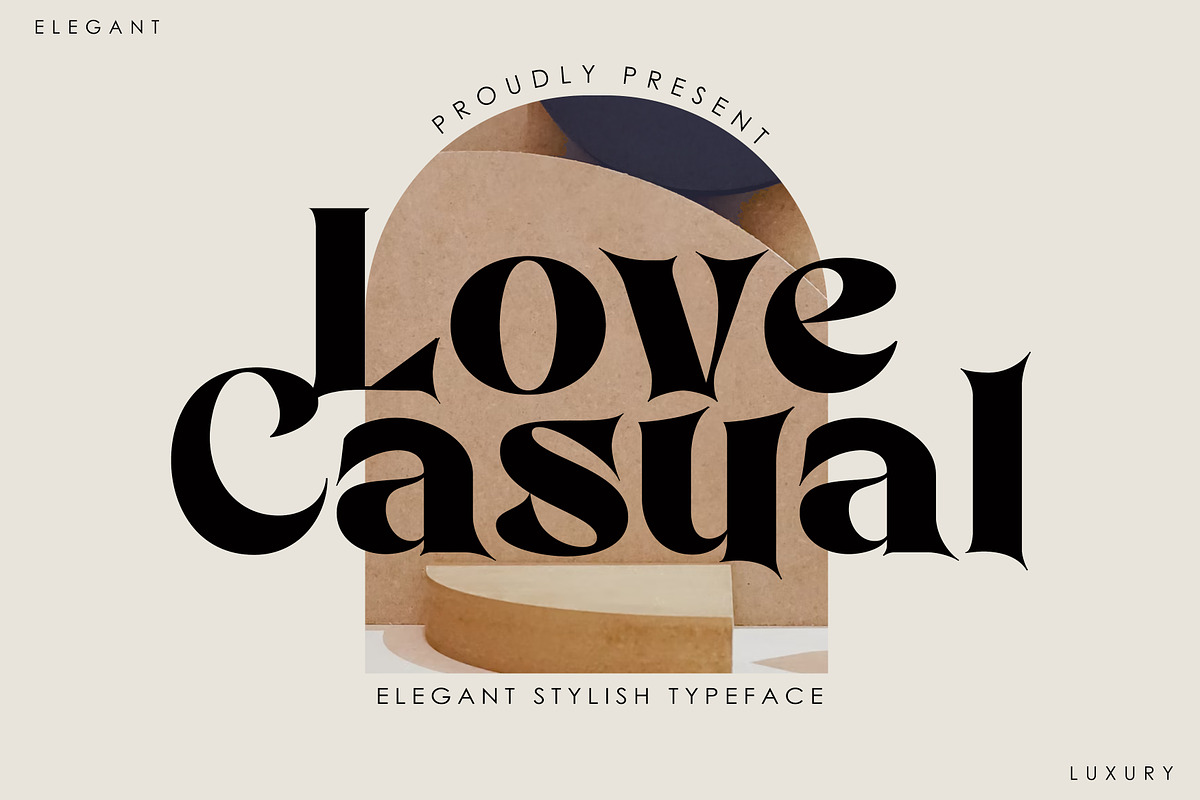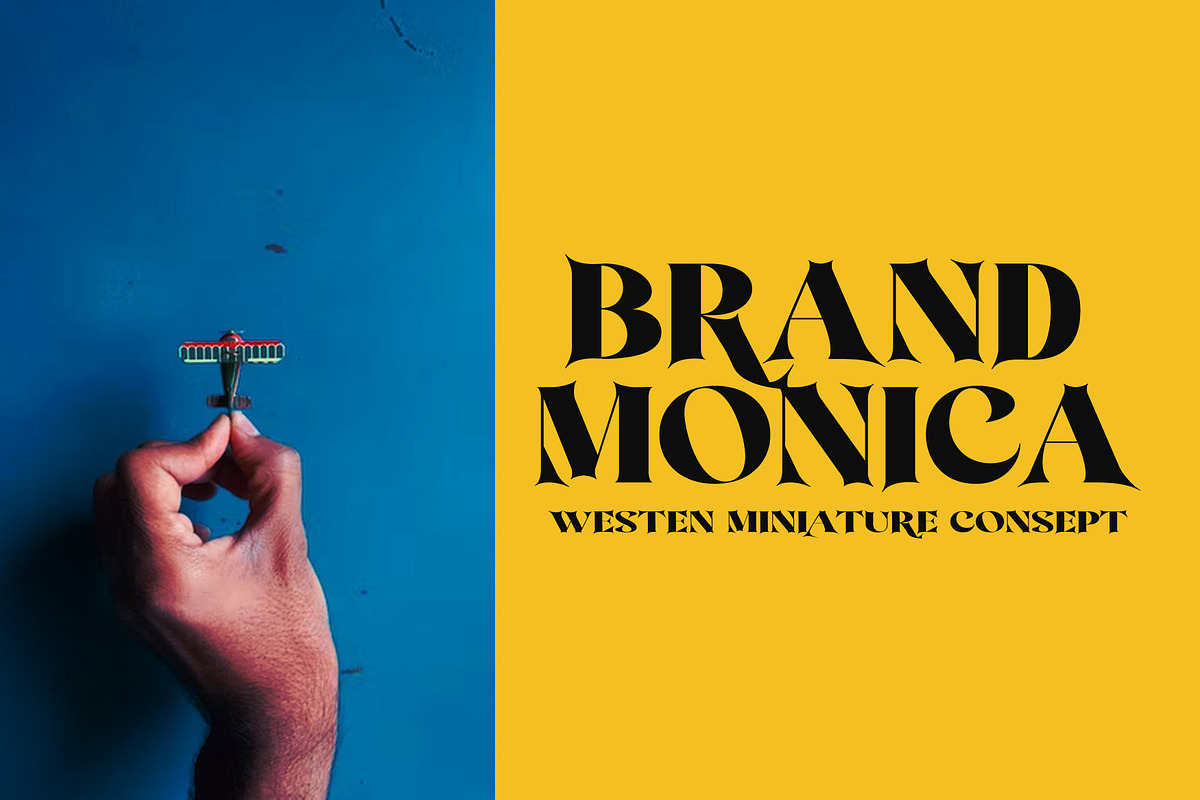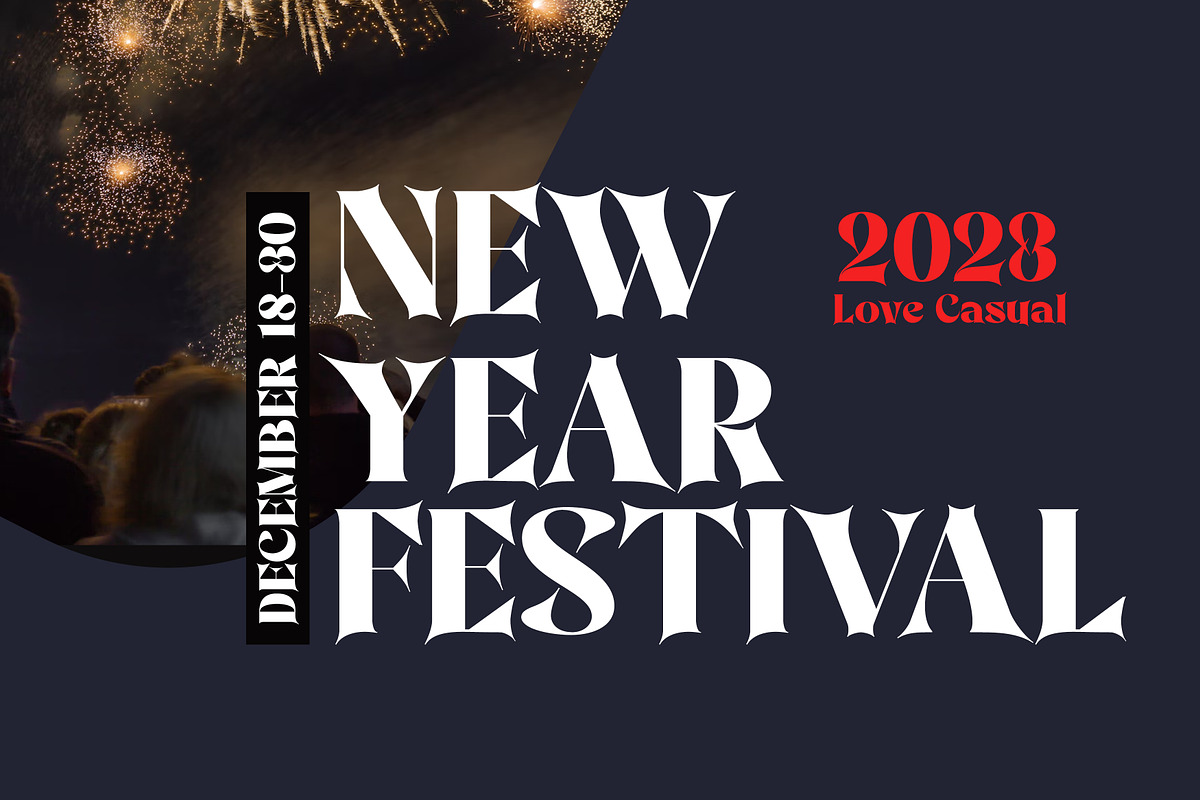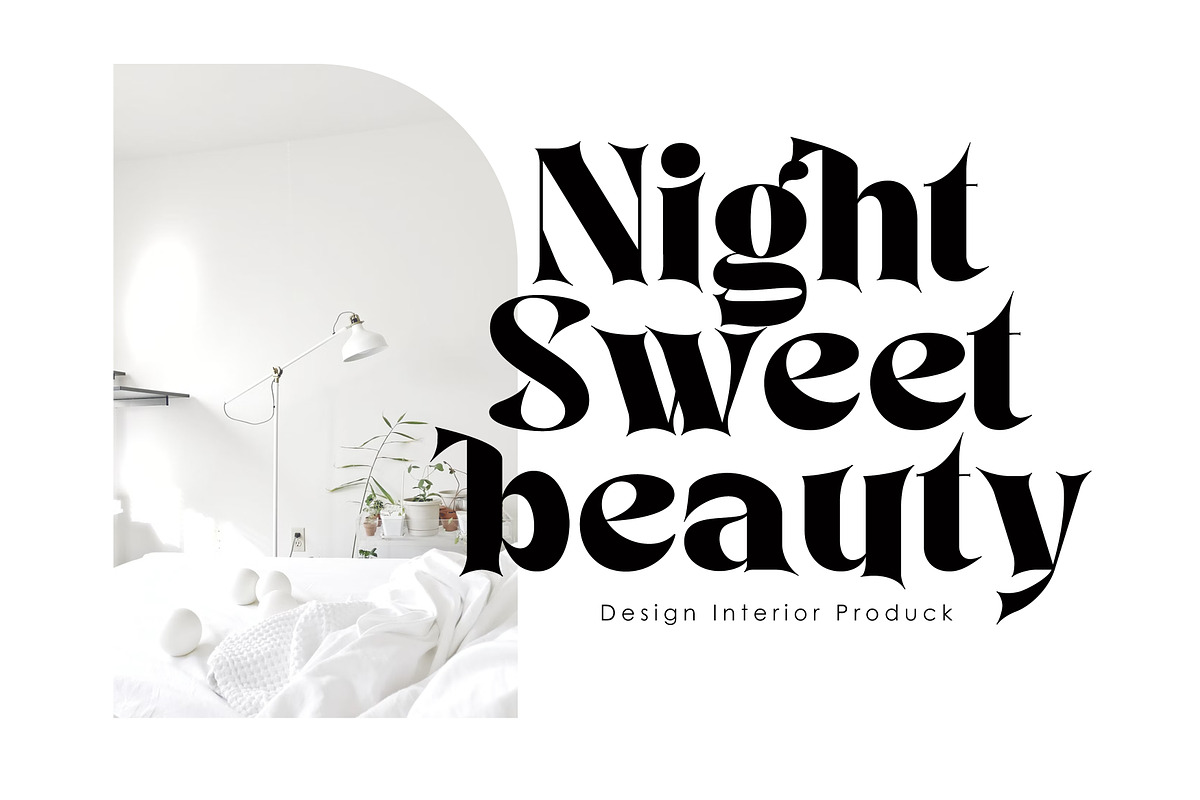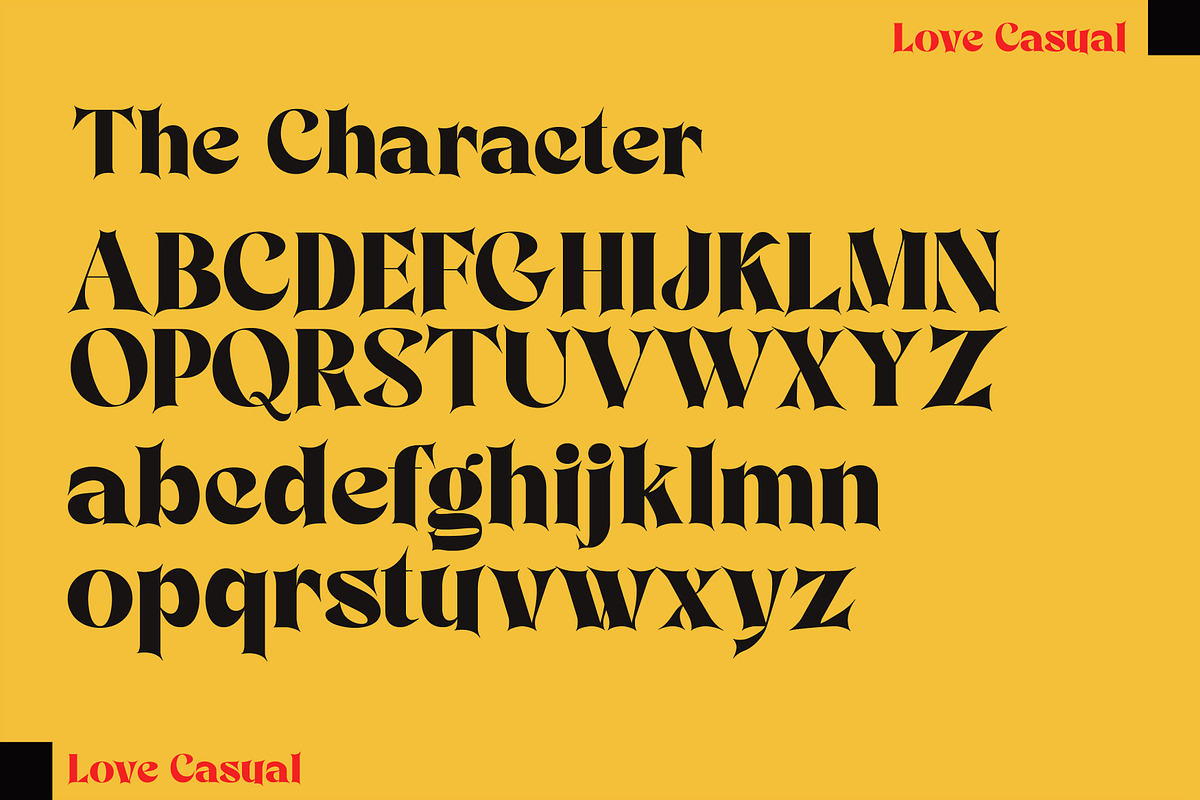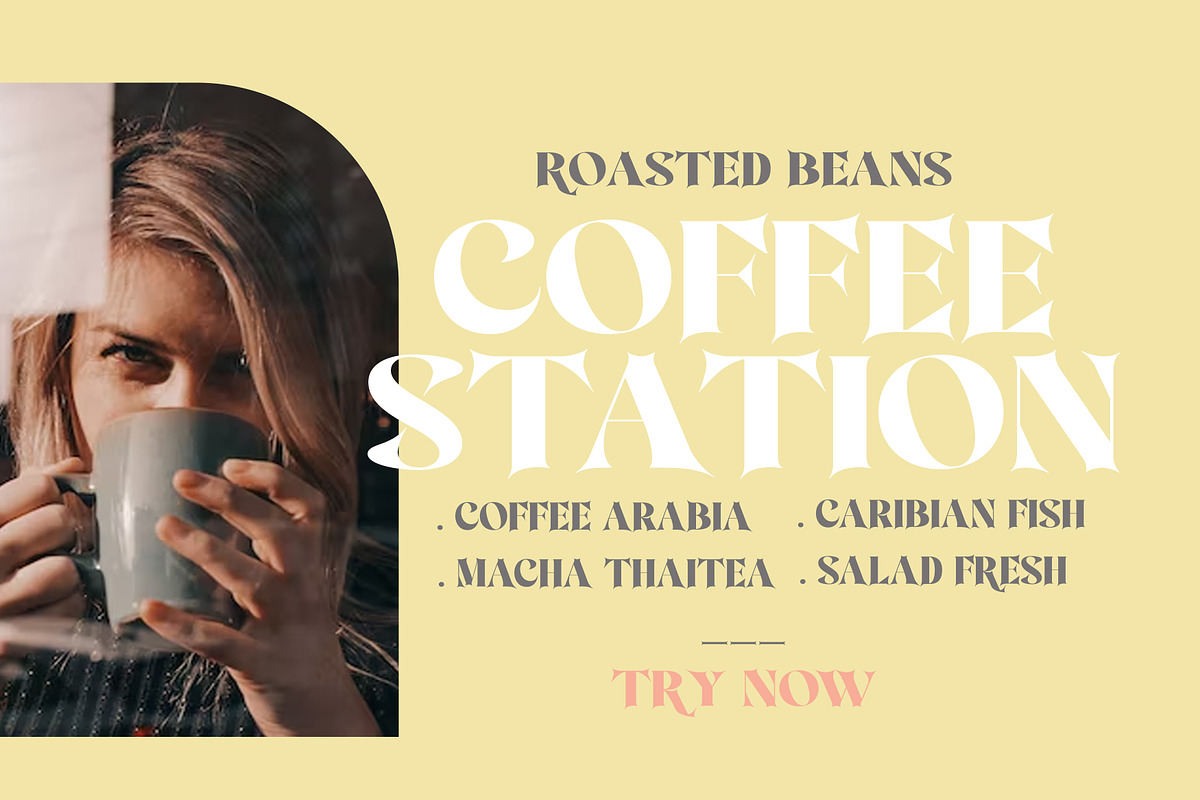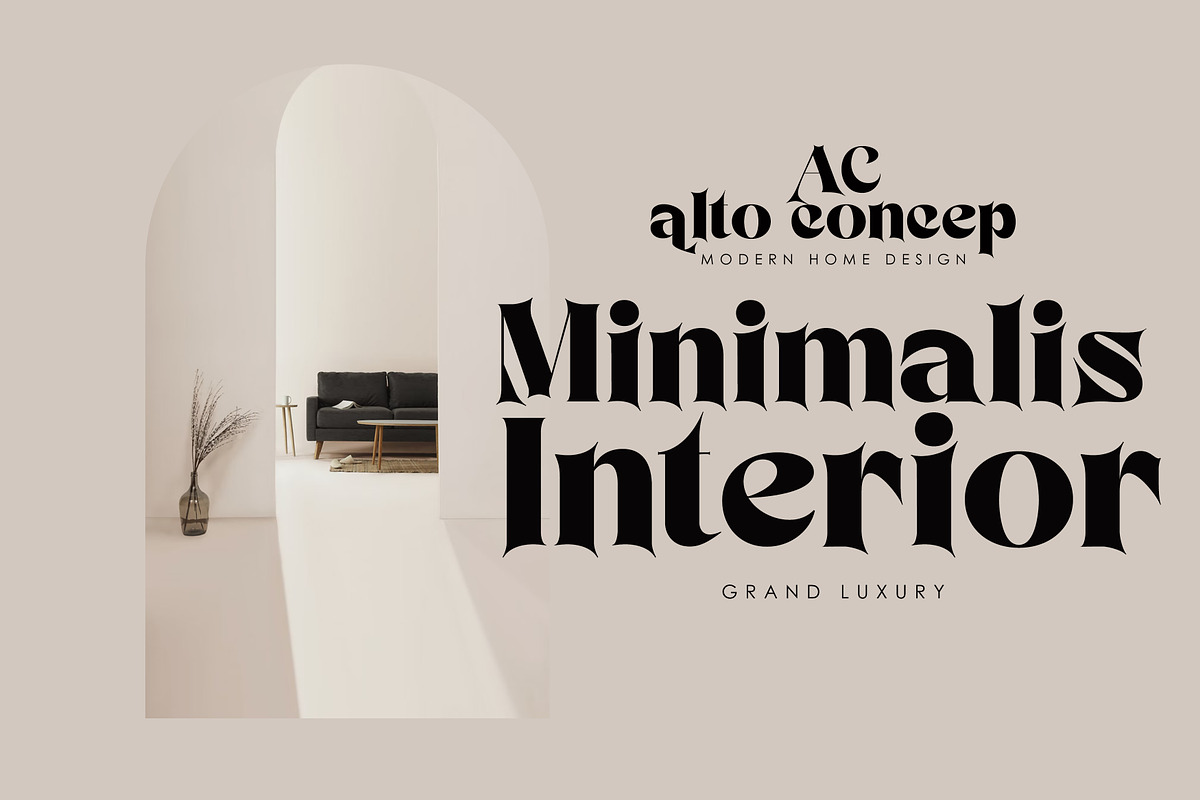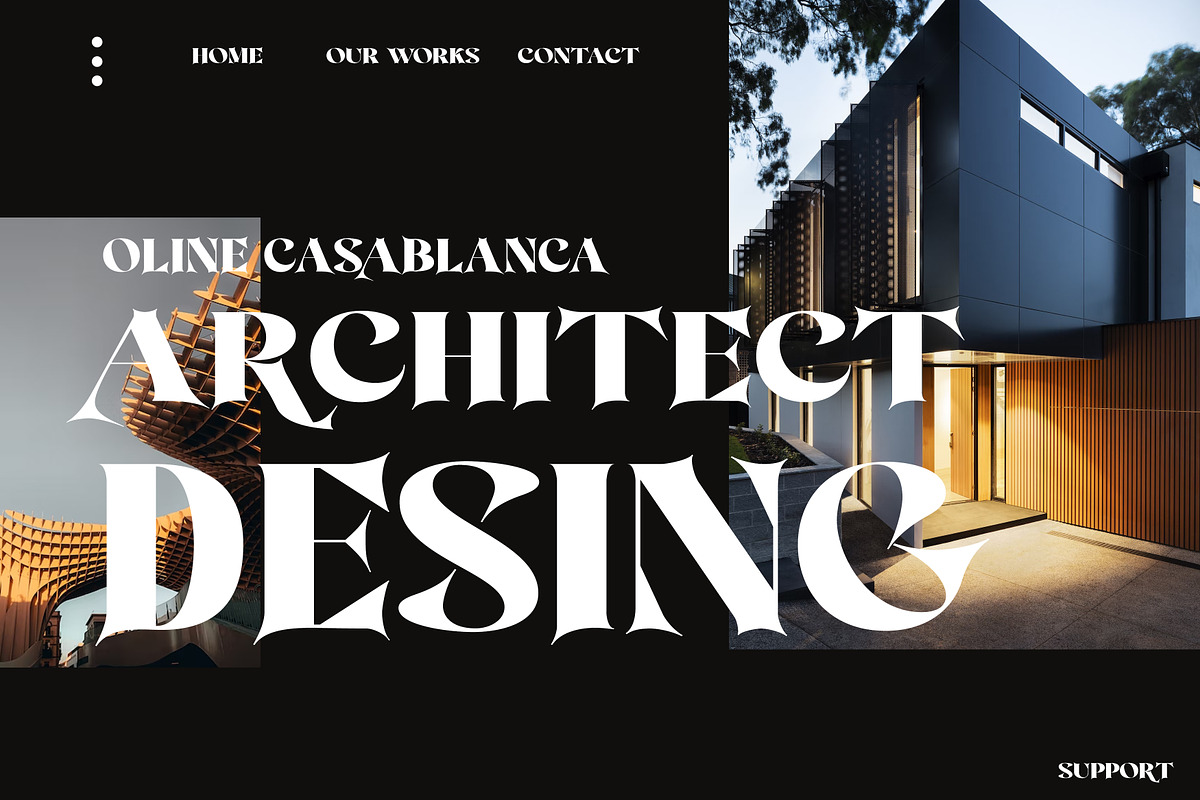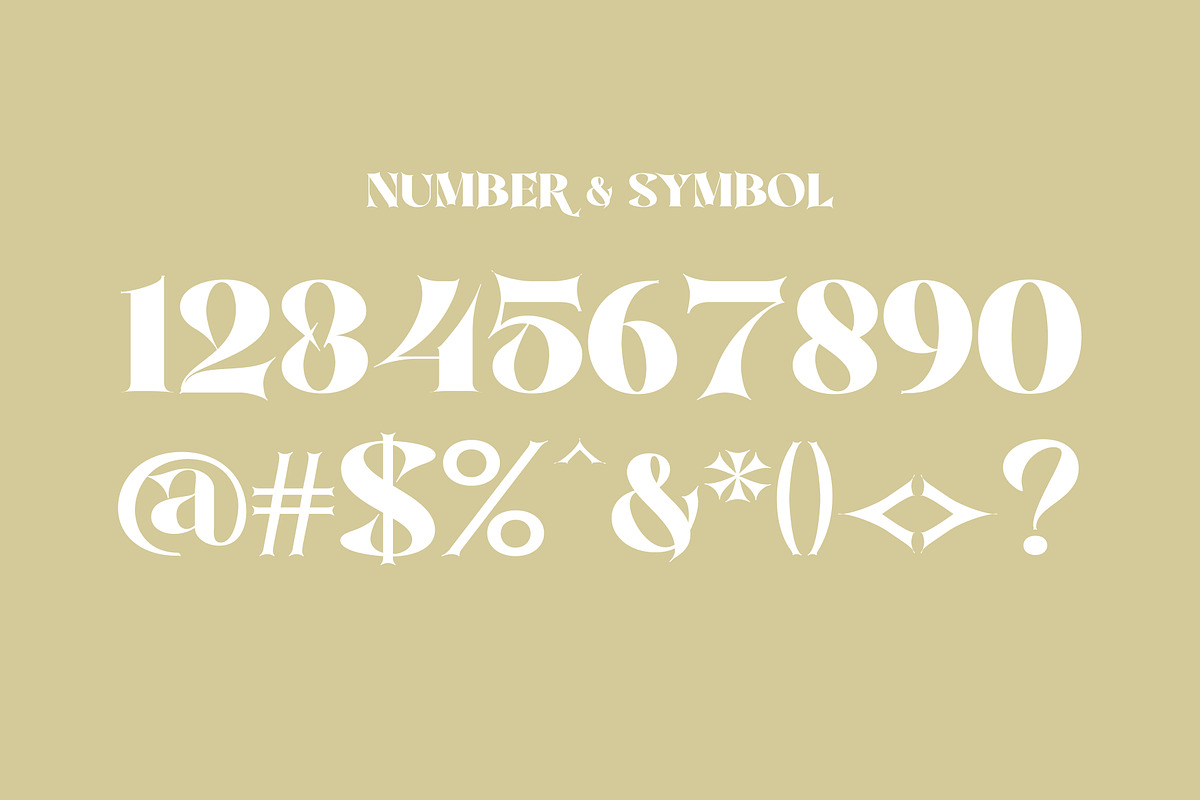
Love Casual
Introducing new Love Casual Serif Typefaces with lots of alternative characters, multilingual support and unique ligatures.
Love Casual is a very versatile font. Perfect for branding projects, logos, magazine imagery, wedding invitations, posters, apparel, packaging, website headers, or simply as a stylish text overlay onto any background image.